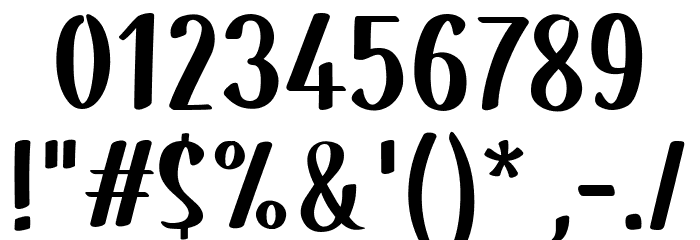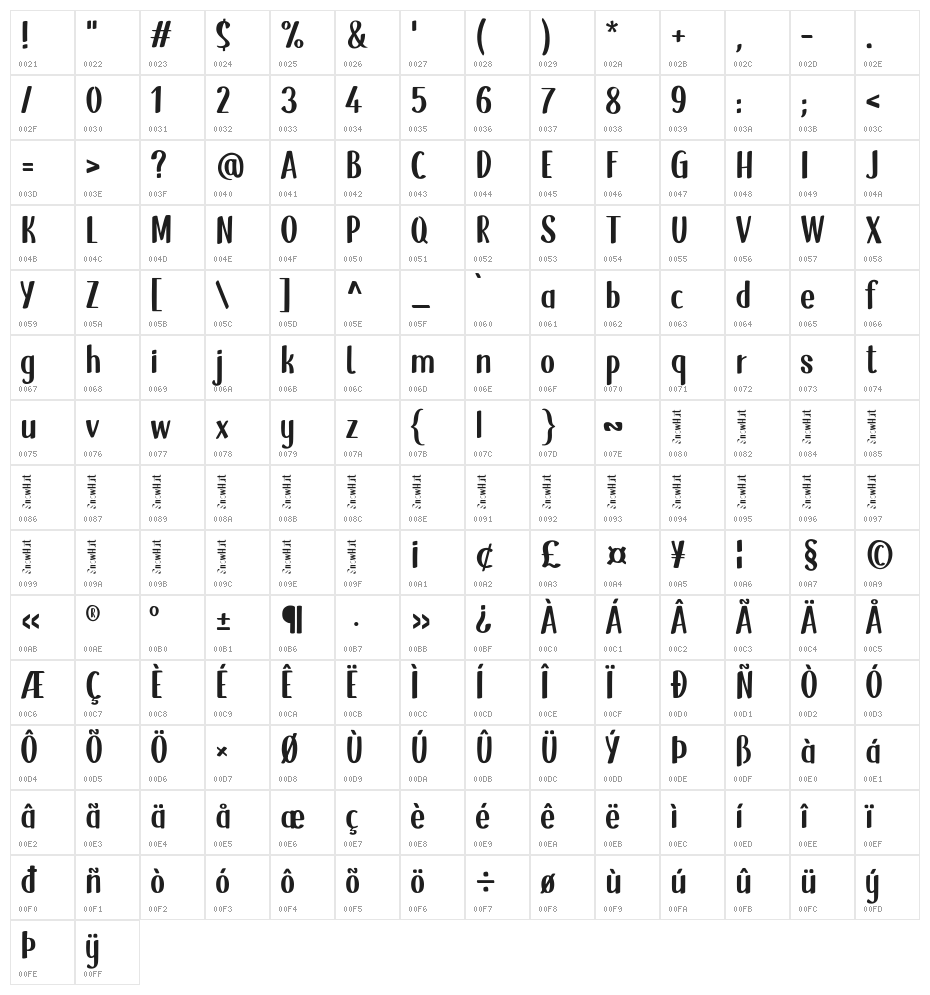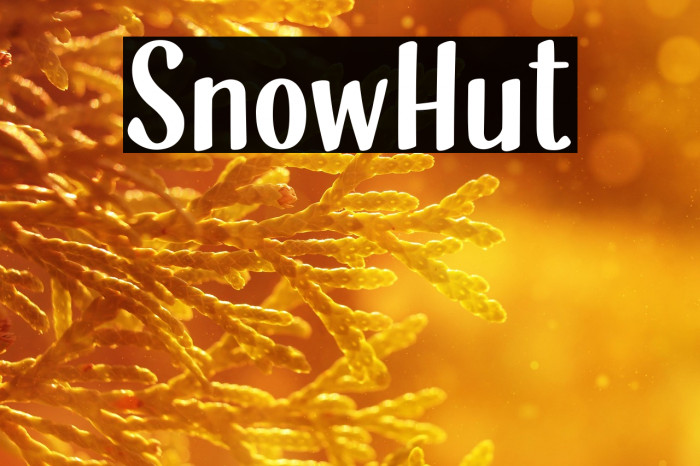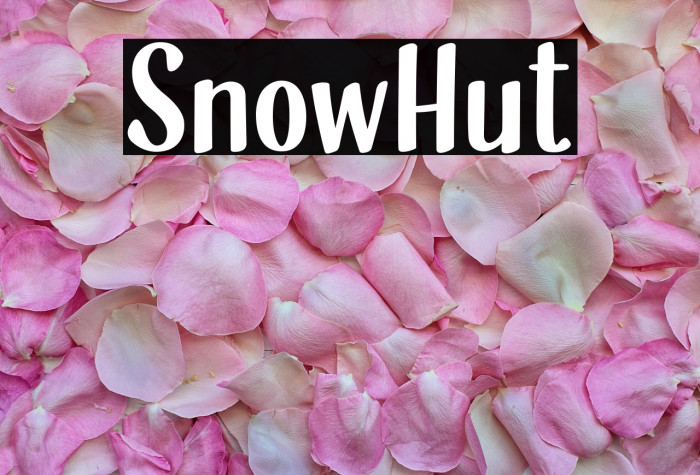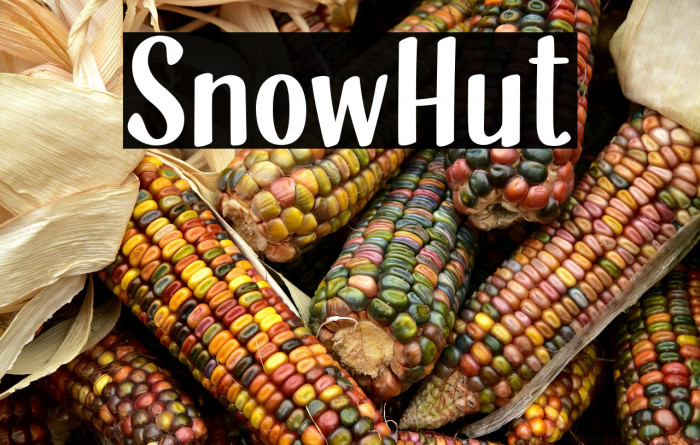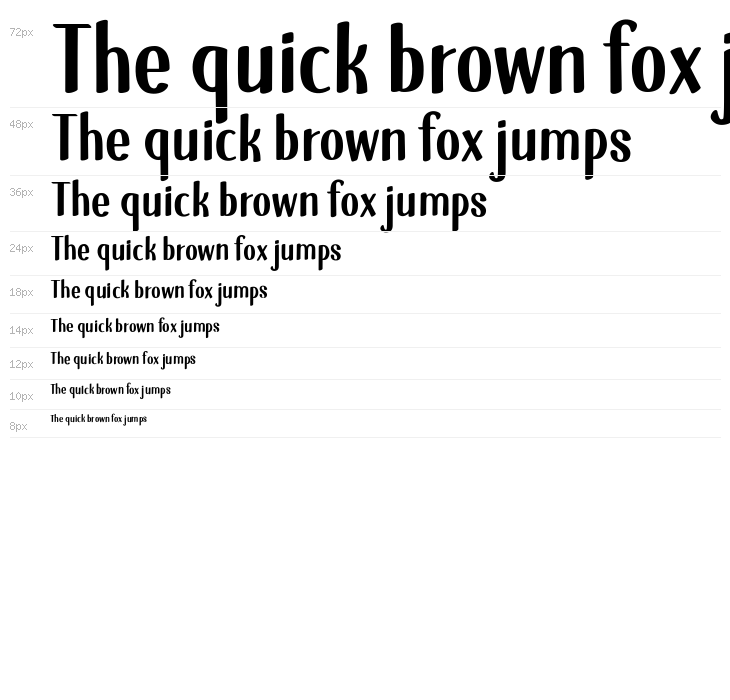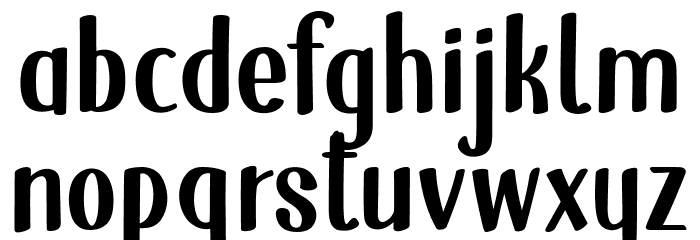
SnowHut Font
SnowHut Description
This font features a playful and bold design with rounded edges and a slightly condensed appearance. The characters are tall and narrow, giving it a unique and eye-catching look. The uppercase letters are uniform in height, while the lowercase letters maintain a consistent baseline with some playful variations in ascenders and descenders. The numerals are well-proportioned, matching the overall style of the alphabet. Special characters are included, maintaining the same bold and rounded aesthetic. This font is ideal for creating a friendly and approachable vibe in any design project.
| Proposed Projects | Ideal for children's books, playful branding, posters, and social media graphics. |